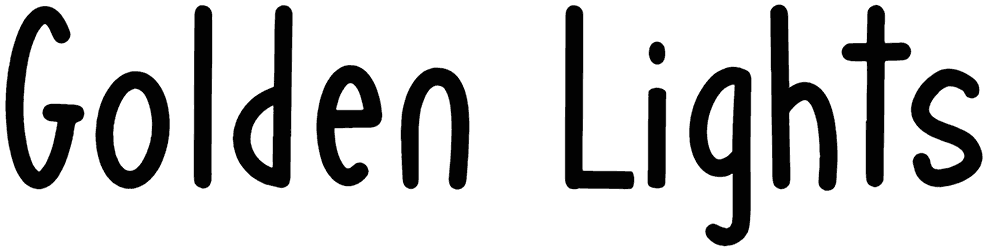
Golden Lights Font
If you are trying to find a minimal and modern outward to enrich your words, this handwritten font would be the right answer. Golden Lights has a modest and casual face that can be nice for numerous projects. With an almost full cover of characters, this script font would be an appealing illustration for many designs, from flyers to planners.